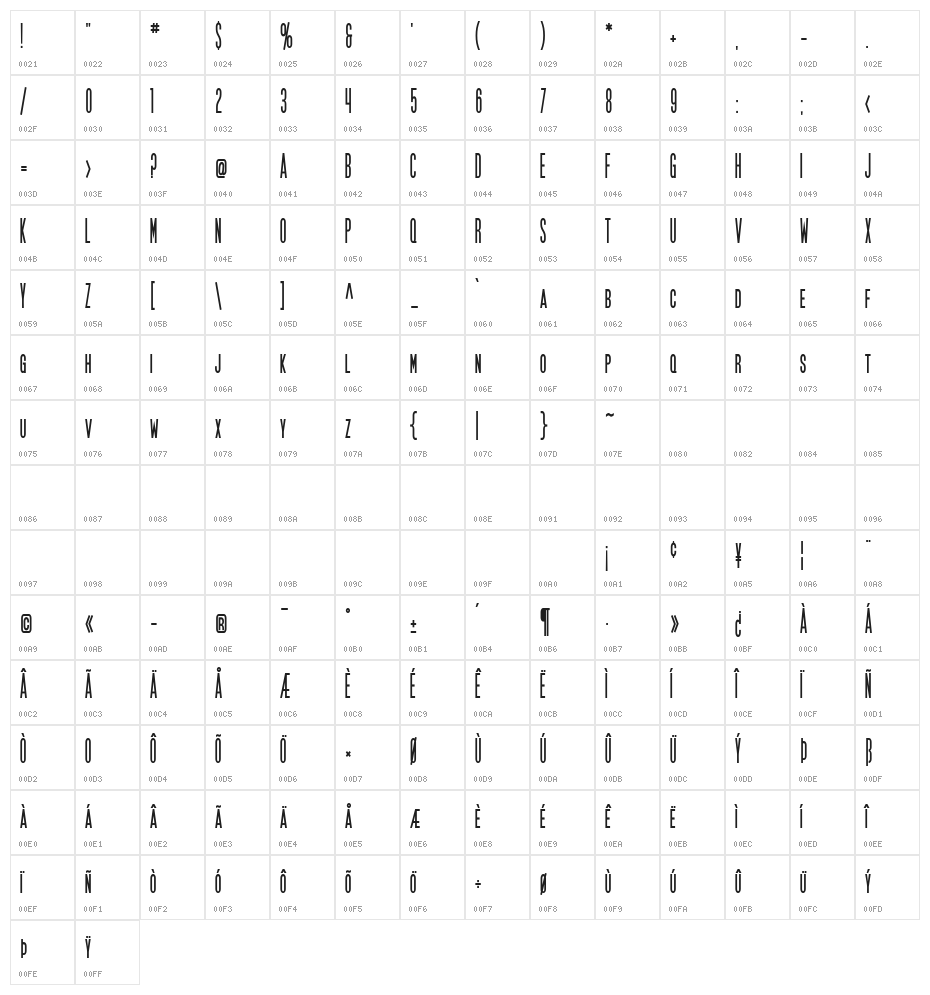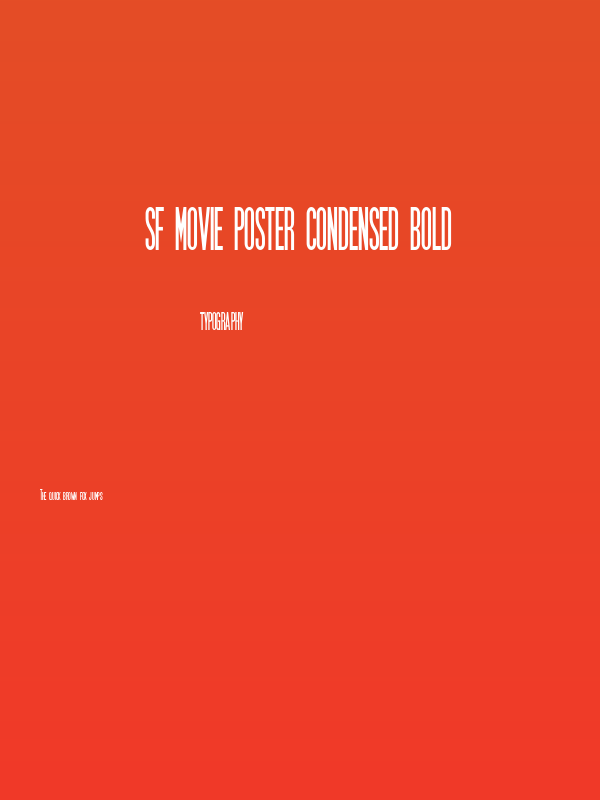
SF Movie Poster Condensed Bold Font
SF Movie Poster Condensed Bold Description
This typeface features a bold and condensed style, characterized by tall, narrow letterforms that create a strong visual impact. The uppercase letters are particularly striking, with uniform stroke widths that give the font a clean and modern appearance. The numerals and special characters maintain the same condensed proportions, ensuring consistency across all text elements. The font's design is straightforward, with minimal decorative elements, making it highly legible even at smaller sizes. Its condensed nature allows for efficient use of space, making it ideal for settings where text needs to be prominent yet compact.
| Proposed Projects | Ideal for movie posters, headlines, advertising, and any project requiring impactful, space-efficient text. |